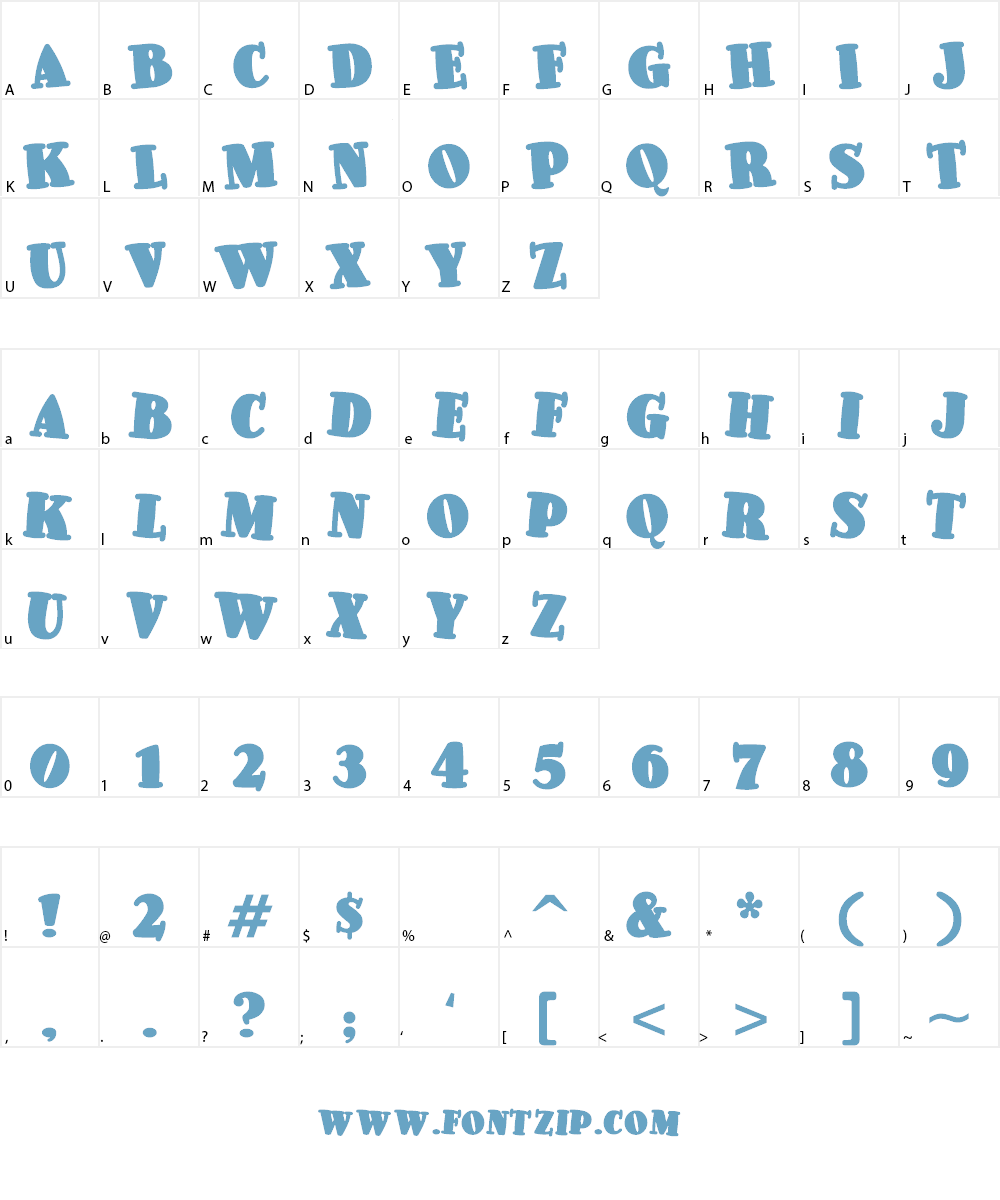
Admittedly, this font may be a little frivolous, but it’s free, so what you gotta complain about? The uppercase letters lean to the left, the lowercase letters lean to the right, so — if you double-clutch the shift key — your headlines will dance with delight.